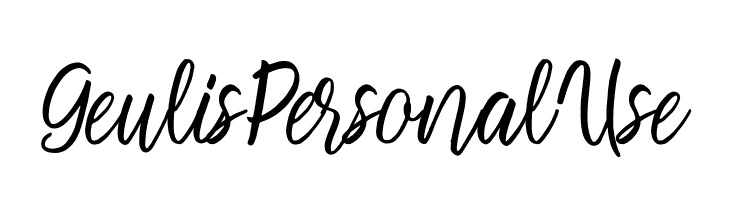
A dynamic and expressive script font with fluid, cursive letterforms.
A fluid, elegant handwritten font with a dynamic and personal touch.
A dynamic, cursive handwritten font with bold, flowing strokes.